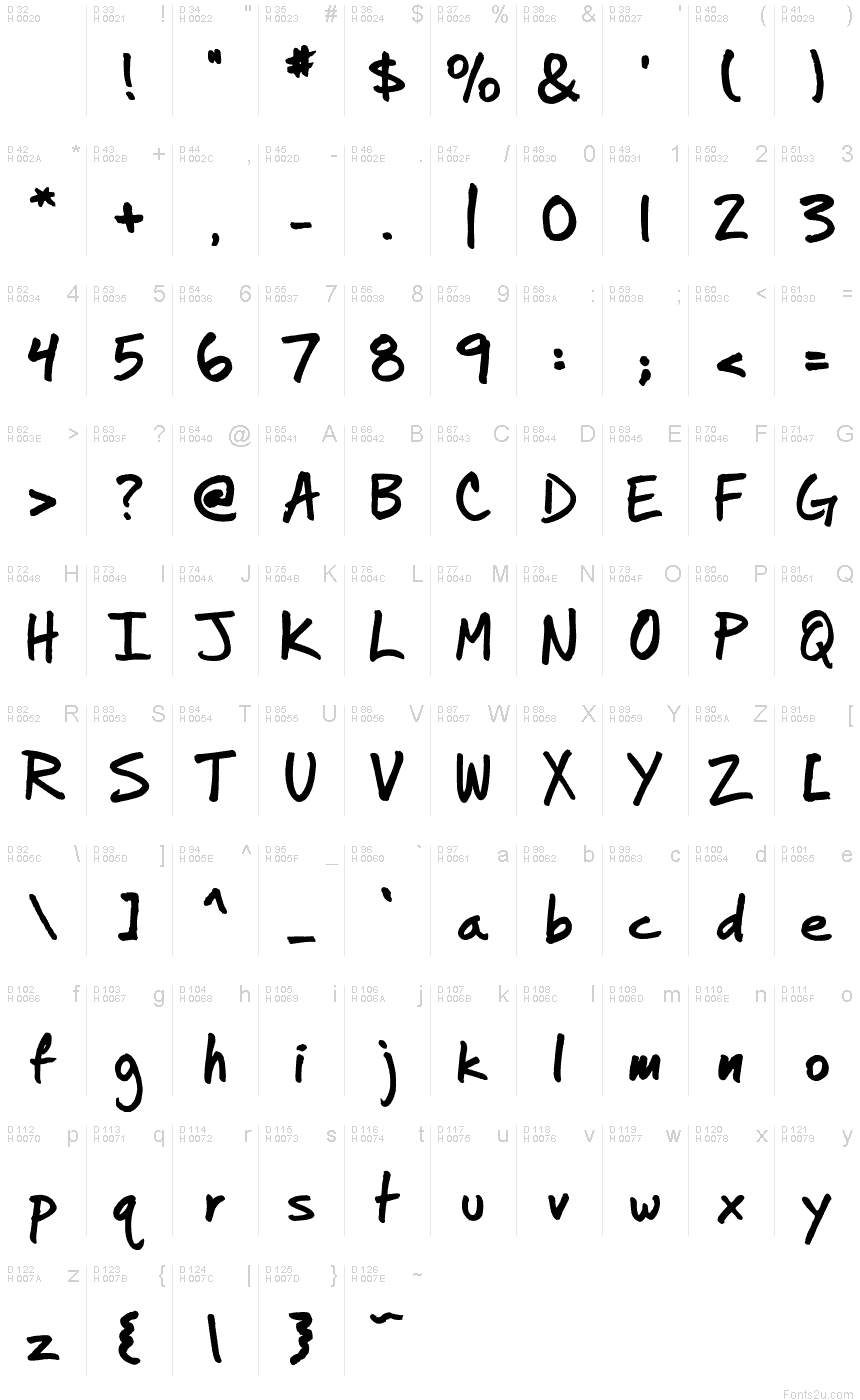
Jotterscript
Jotterscript font by Rolf Skyberg is a free handwritten script typeface with the bold, inky punch of a favorite black marker. Its strokes feel loose and casual, but the spacing is steady enough that lines read cleanly, even in a quick skim. Letters lean and bounce just a bit, giving text a human, slightly messy charm—like notes scrawled on a whiteboard or the title across a well-worn sketchbook.
Using Jotterscript, you can bring that energetic, hand-done feel to posters, zines, classroom materials, social graphics, product labels, and informal invitations. This free font shines when set larger, where its chunky curves and thick joins really show, and it pairs smoothly with a simple sans serif for small supporting text.